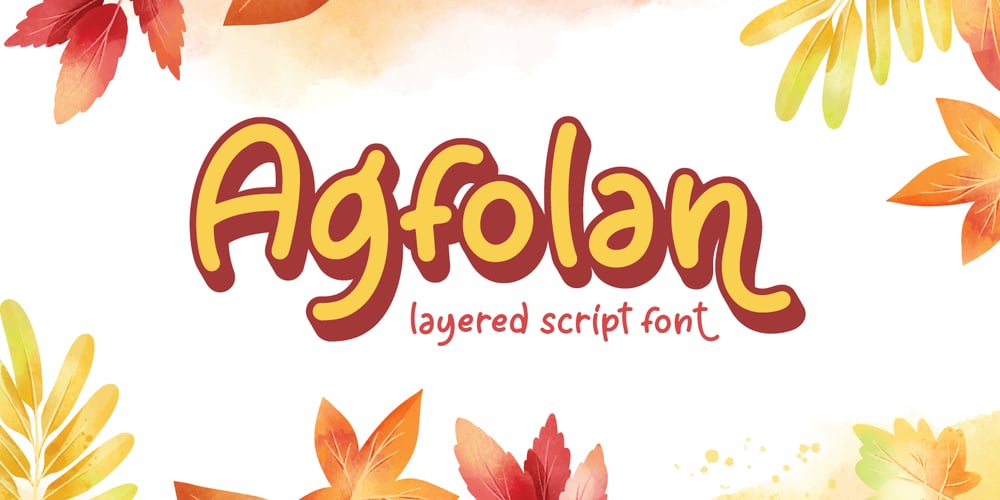
Agfolan Font Family was designed by Fadli Ramadhan Iskandar and published by Attype Studio. Agfolan contains 3 styles and family package options. Agfolan is a layered script font with autumn or Fall theme, use it to create spectacular designs.Combine it with Agfolan – Extrude to make an amazing 3D effect on your letter! Agfolan perfect for Autumn or Fall promotion, branding, logo, invitation, stationery, social media post, product packaging, merchandise, blog design, game titles, cute style design, Book/Cover Title and more.What’s Included :- Multilingual Support – Made it into separated file to make it easier to use by beginner & separated file user can use the font with software which doesn’t accept open type features.—Hope you enjoy with our font!Attype Studio